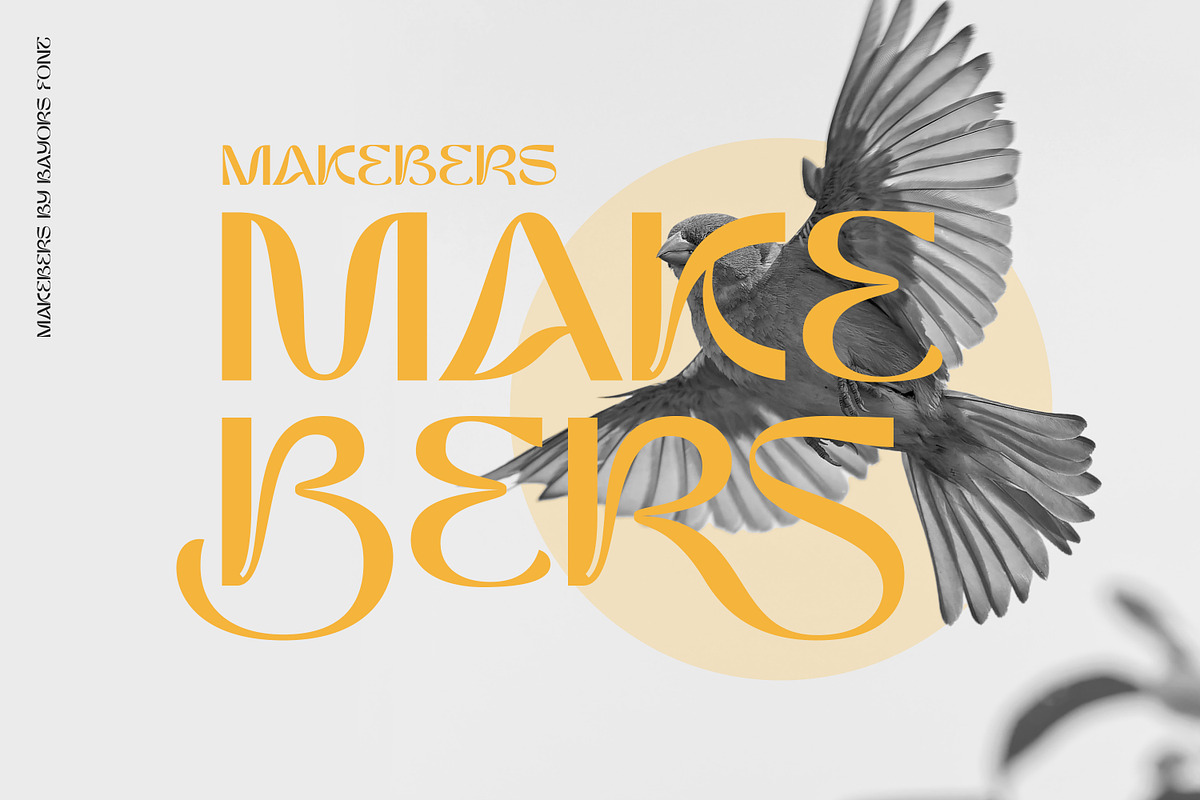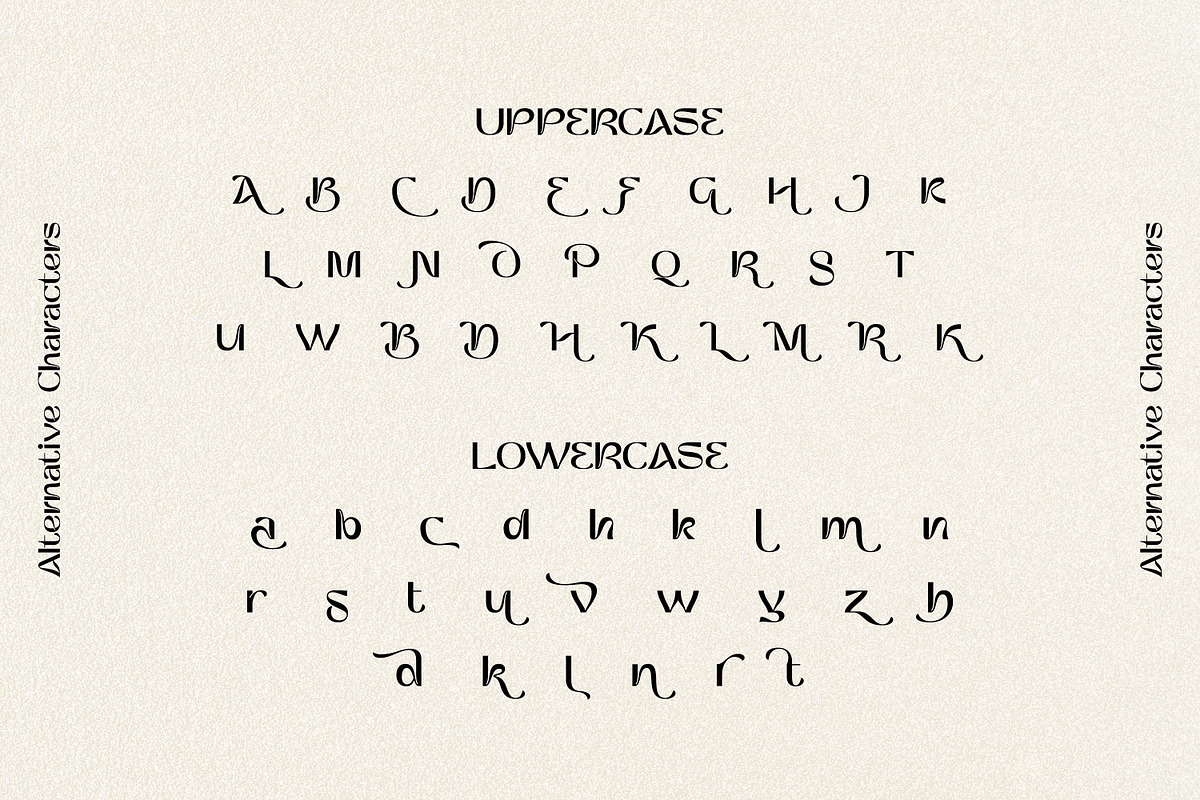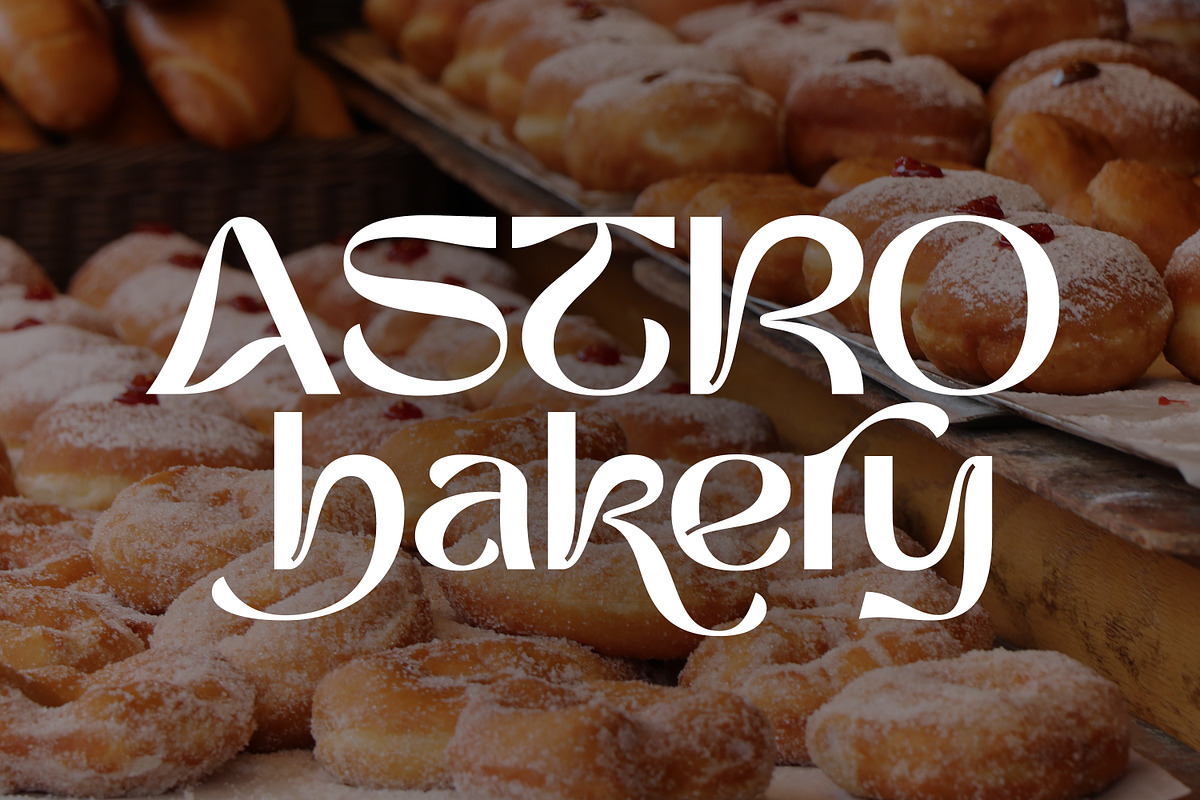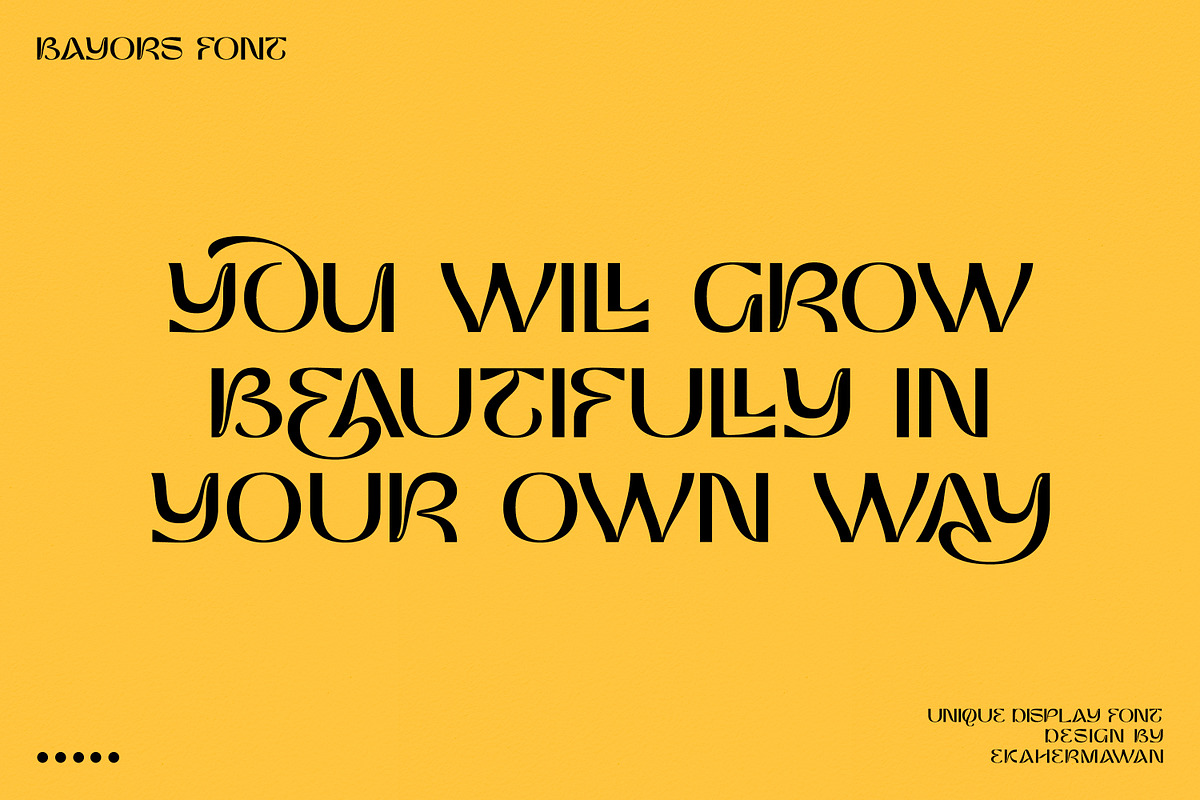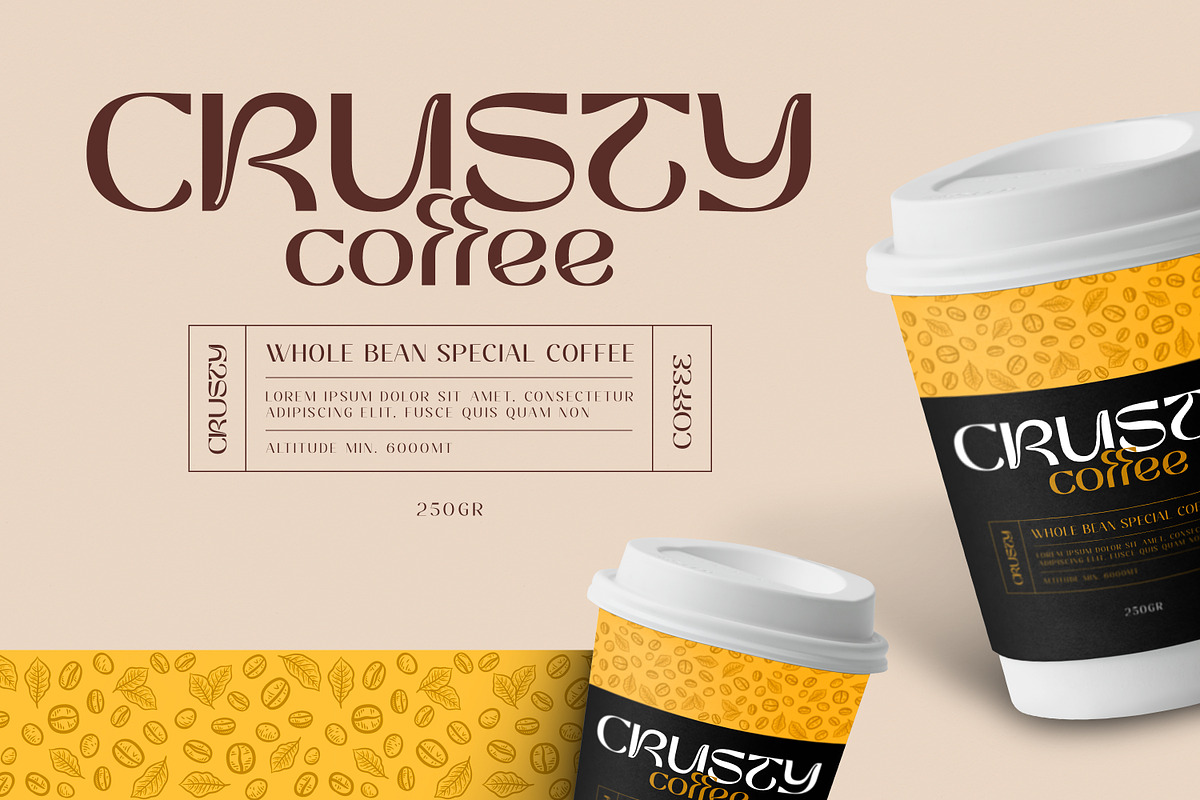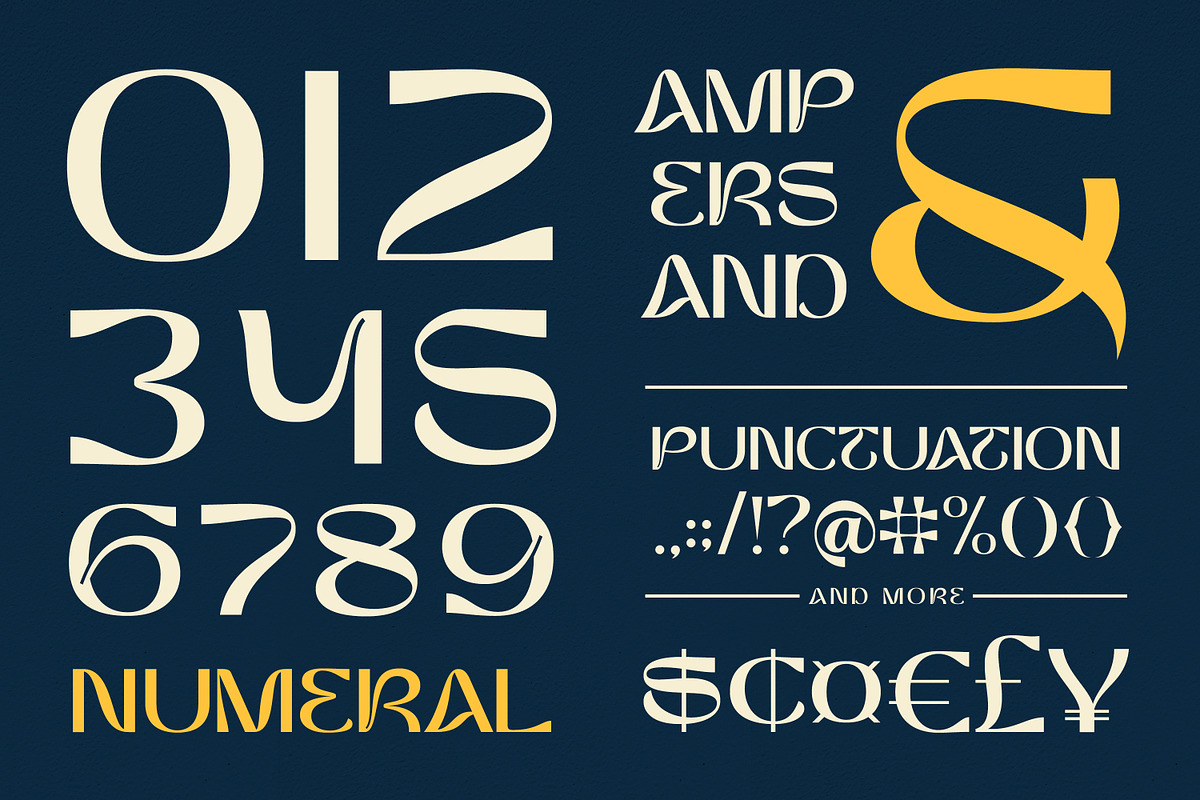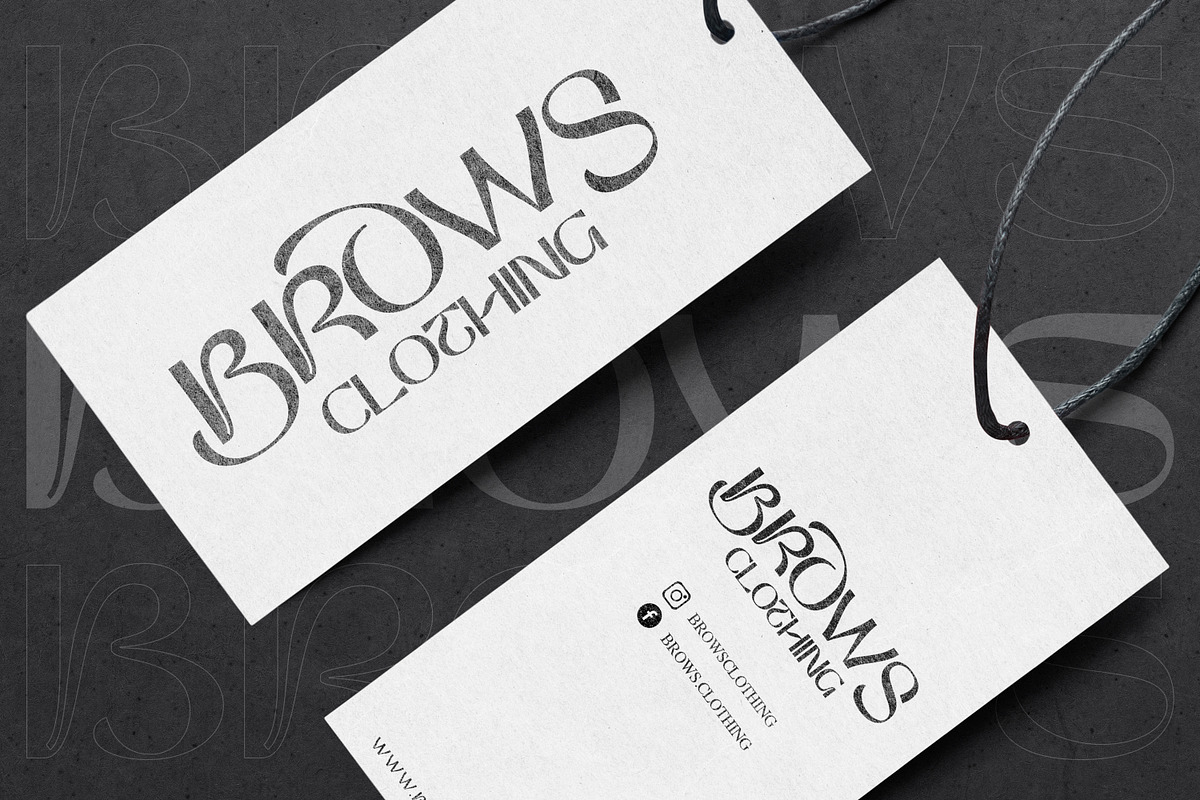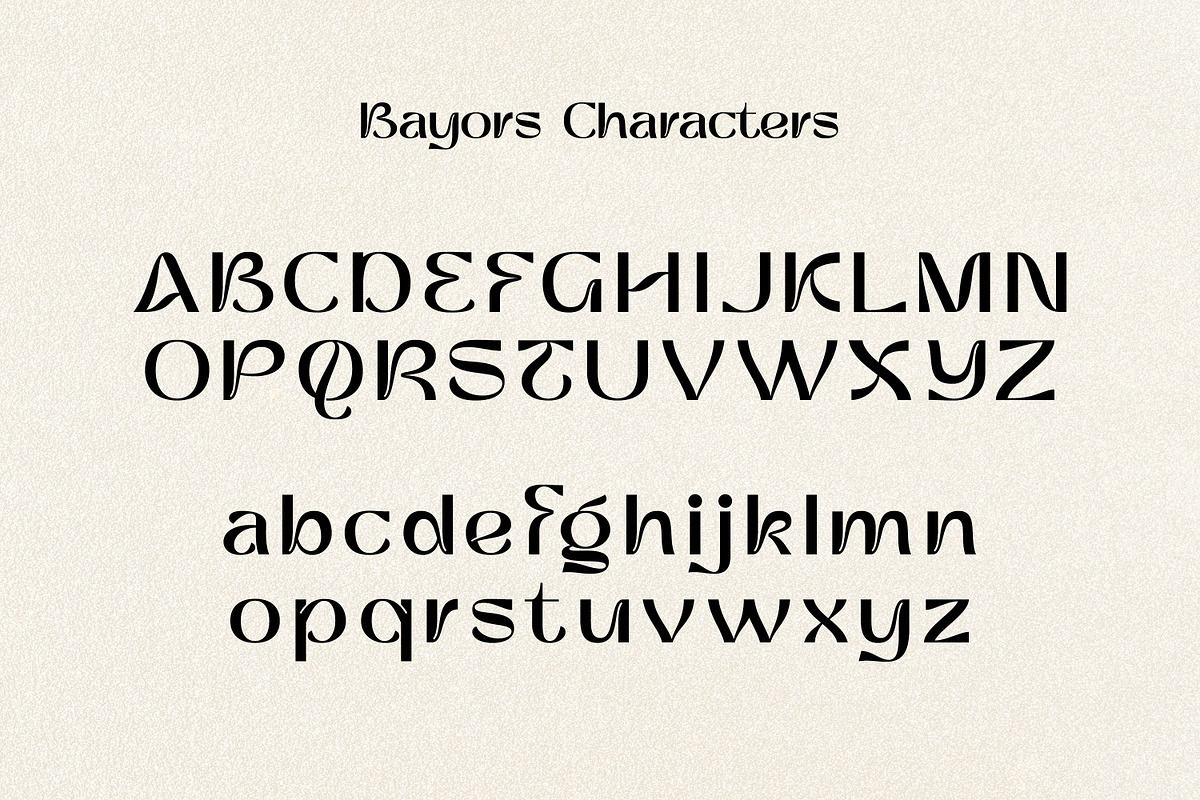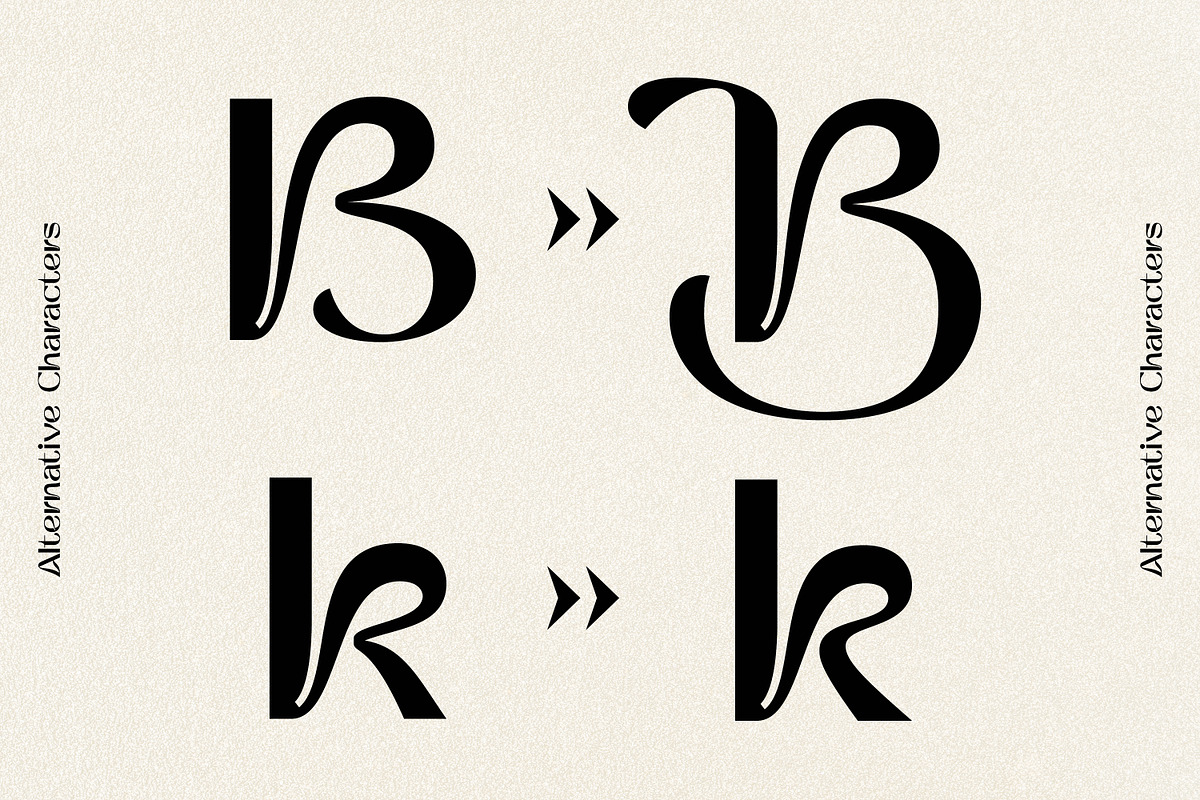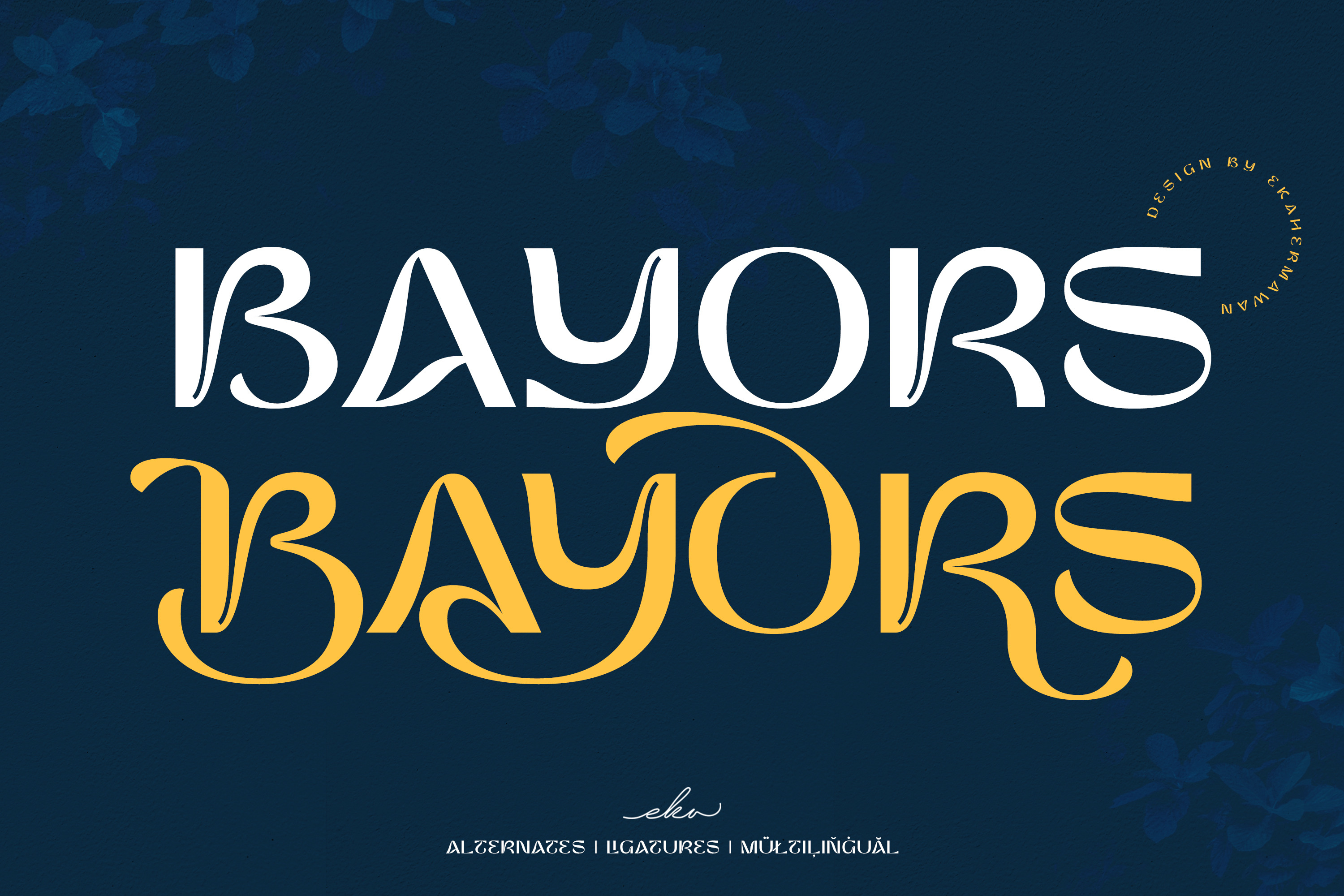
Bayors | Psychedelic Display font
Bayors is an unique display font that will make your design looks more unique and attractive. Bayors also comes with a lots of alternative and ligatures characters that you can play for many different projects such as logo design, branding, poster, magazines, labels, merchandise, invitation, presentation, promotion, advertising and so much more!
Features : OpenType support, alternative & ligatures characters, multilingual support & PUA Encoded